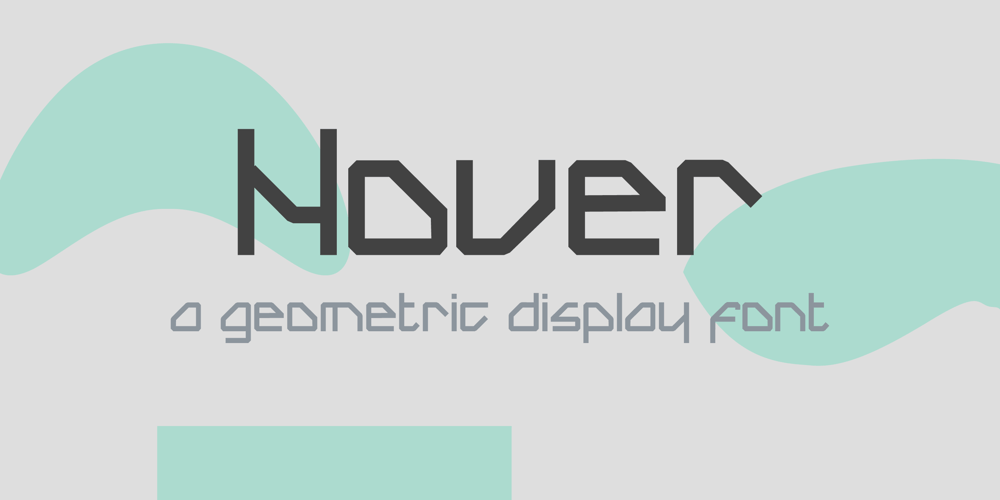
FI Hover
FI Hover font
FI Hover Font Family was designed by Furkan İlbay and published by Furkan İlbay. FI Hover contains 1 styles and family package options. FI Hover is a great geometric display font for your hi-tech, futuristic and industrial projects. Bold, edgy and geometric characteristics of the glyphs make this font a really god fit for mechnanical equipments, techno-oriented music posters and computer-related designs. Because all of the glyphs made out of a hexagon grid, you can really sync this type with triangles, rectangels and other geometric shapes easily.